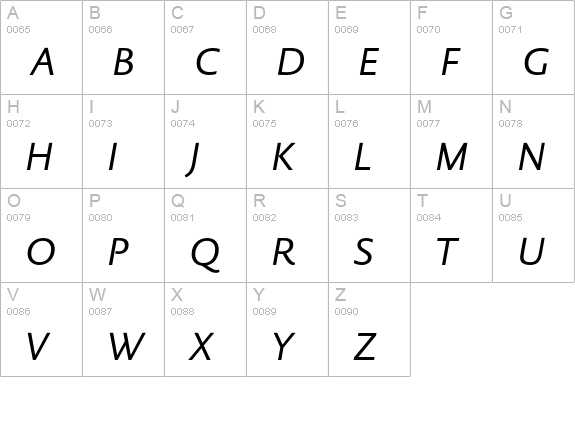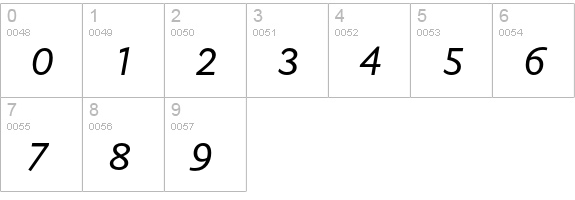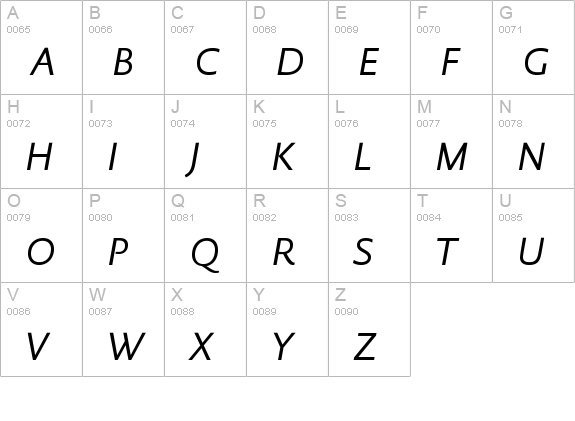
DTLDocumentaSansT-Italic Font Details
DTLDocumentaSansT-Italic is a distinctive, italic variant in the DTLDocumentaSansT typeface family \xE2\x80\x94 well suited to design and typography projects.
DTLDocumentaSansT-Italic is a sleek and modern font style that exudes sophistication and elegance. With its slanted and italicized design, this typeface adds a touch of flair to any project, making it perfect for headings, titles, and emphasis in text. The italicized characters of DTLDocumentaSansT-Italic maintain a sense of readability and clarity, ensuring that your message is conveyed effectively. Best of all, this stunning font is available for free download on FontsMarket.com. Whether you are a designer looking to enhance your creations or a writer seeking a unique typeface for your words, DTLDocumentaSansT-Italic offers versatility and style without any cost. Don't miss out on the opportunity to elevate your projects with this exceptional font. Download DTLDocumentaSansT-Italic today and see the difference it can make in your work.